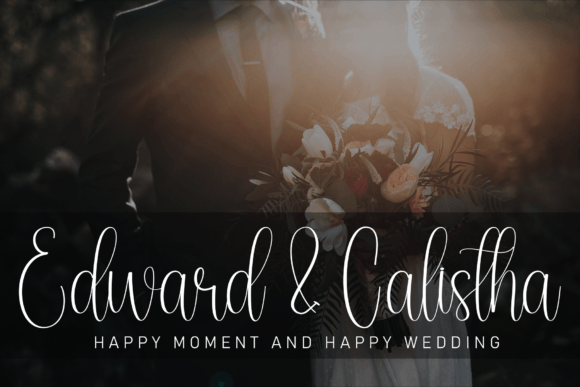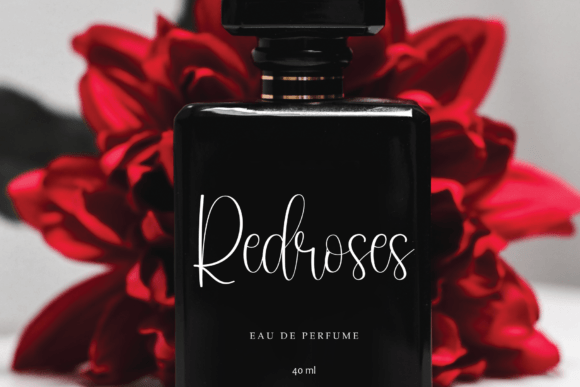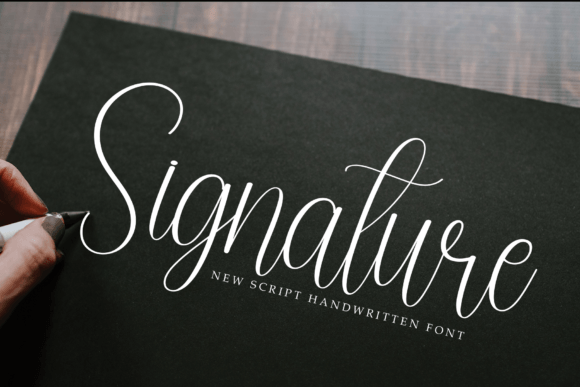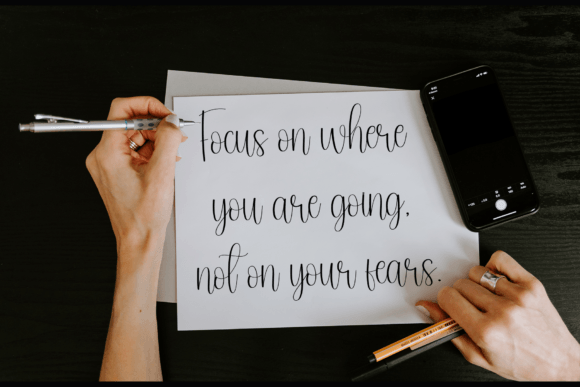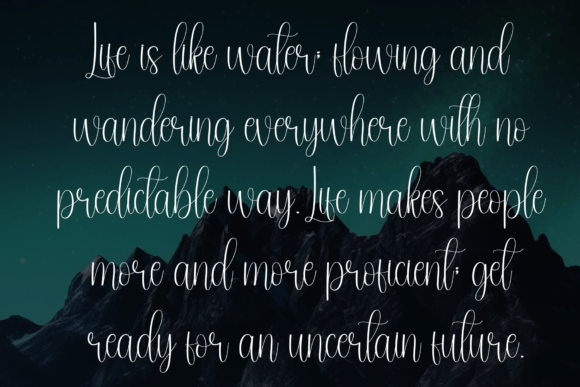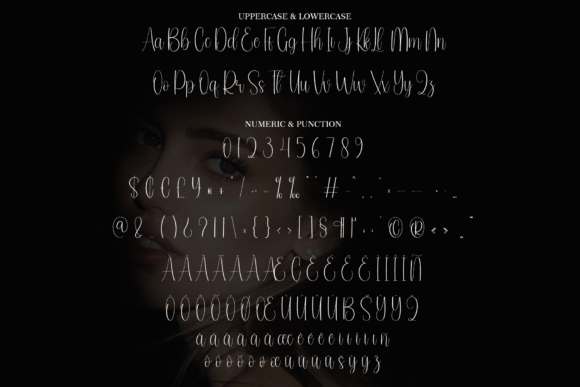
Adding a Personal Touch with the Alexandra Signature Font
Have you ever found yourself scribbling down the perfect wedding invitation in a notebook, only to wish you had the perfect font to match your vision? We’ve all been there. The search for the perfect font can be overwhelming, but what if I told you there’s one that’s sure to capture the essence of your creativity?
Meet the Alexandra Signature Font, a sweet and friendly handwritten font that’s perfect for adding a personal touch to your designs. This fresh and casual font is ideal for writing wedding invitations, cards, or any other design that needs a lovely touch. Whether you’re a professional designer or a DIY enthusiast, the Alexandra Signature Font is a valuable addition to your toolkit.
Alexandra Signature Font Key Features
- Font Family: Alexandra Signature Font
- Unique Characteristics: Elegant script font with a touch of sophistication, perfect for signatures, titles, and headings
Designer Review: Alexandra Signature Font
Overall, I think Alexandra Signature Font is a great addition to any designer’s toolkit. ✨ It’s elegant, sophisticated, and versatile enough to be used in a variety of projects. The font is perfect for creating a luxurious and high-end feel, making it ideal for branding, marketing materials, and luxury product packaging.
One of the things that stands out about Alexandra Signature Font is its beautiful ligatures and swashes. ✨ These subtle details add an extra layer of sophistication and personality to any design. The font also has a wide range of weights and styles, making it easy to customize to suit your needs.
While Alexandra Signature Font is a great font, there are a few limitations to consider. ⚠️ For one, it may not be the best choice for projects that require a lot of text or body copy. The font is quite ornate, and can be difficult to read in large quantities. Additionally, the font may not be compatible with all operating systems or devices, which could cause issues with design consistency.
- Elegant and sophisticated design
- Versatile enough for a variety of projects
- Beautiful ligatures and swashes
- Wide range of weights and styles
- May not be suitable for large quantities of text
The Alexandra Signature Font is ideal for:
- Creating elegant and sophisticated logos.
- Designing wedding invitations and stationery.
- Adding a touch of luxury to business cards and brochures.
To get the most out of the Alexandra Signature Font, use it in combination with other elegant fonts and add decorative elements such as flourishes or swashes.
Experiment with different font sizes and colors to create a unique and eye-catching design.
Alternatives to Alexandra Signtaure Font
The Great Vibes Font is a beautiful, elegant script font suitable for creative projects. It’s ideal for use in branding, advertising, and editorial design. Great Vibes has a more flowing and dynamic feel compared to Alexandra Signtaure, making it a great choice for projects that require a sense of movement and energy.
The Carolyna Pro Font is a high-end script font with a luxurious feel. It’s perfect for use in high-end branding, invitations, and special events. Carolyna Pro has a more refined and sophisticated look compared to Alexandra Signtaure, making it a great choice for projects that require elegance and sophistication.
The Lobster Font is a fun, playful script font suitable for casual projects. It’s ideal for use in social media, blogs, and advertising. Lobster has a more relaxed and casual feel compared to Alexandra Signtaure, making it a great choice for projects that require a friendly and approachable tone.